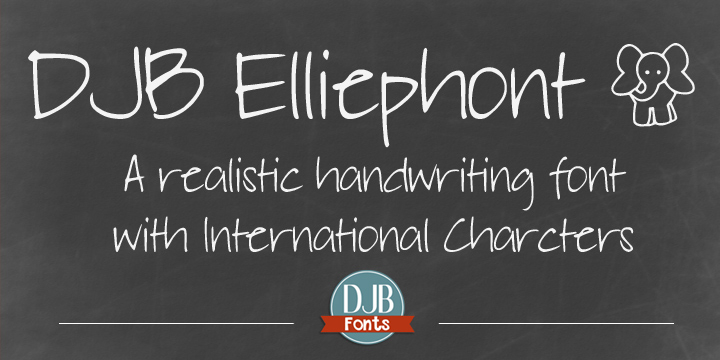
DJB Elliephont is a hand drawn font published by Darcy Baldwin Fonts.
DJB Elliephont is a realistic handwriting font by Darcy Baldwin fonts which also contains international language glyphs.